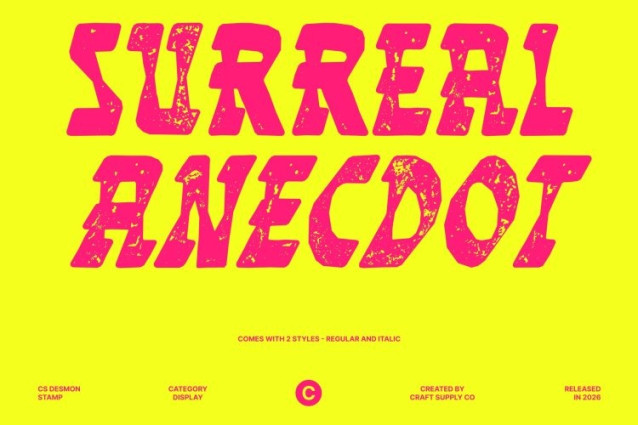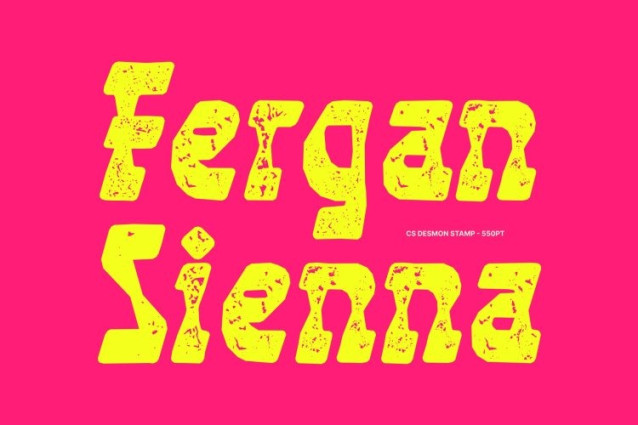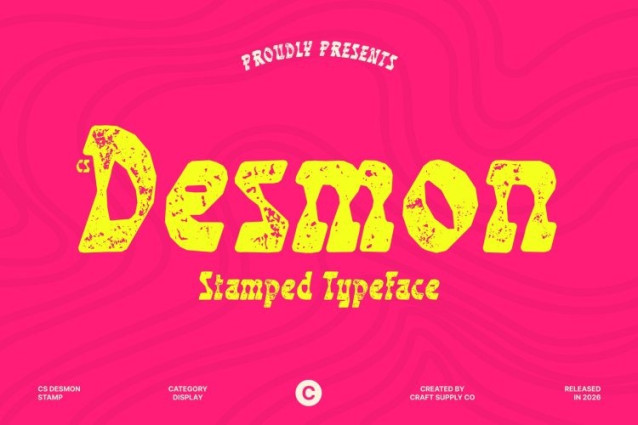
CS Desmon Stamp Font
CS Desmon Stamp Font – This is a display font that pushes beyond traditional serif design with its distinctive reverse contrast style. The upper portions of each letter are thicker while the lower sections are thinner, creating an unexpected visual rhythm that immediately catches the eye. This unusual weight distribution delivers a bold and memorable presence in any composition.
Funky, Playful, and Full of Personality
Beyond its unique structure, the font embraces a funky and playful spirit. Its quirky letterforms and lively character give designs an energetic and expressive tone, making it perfect for projects that want to feel fresh, unconventional, and creative.
Expressive Stamp Texture
The stamped effect adds a handcrafted, tactile quality that enhances the font’s personality. This subtle texture introduces depth and authenticity, helping designs feel more organic and visually engaging while maintaining a bold display impact.
Perfect for Eye-Catching Creative Projects
This font shines in music posters, vibrant advertising, packaging, and standout branding. Its reverse contrast structure and playful vibe ensure your message stands out with originality, confidence, and creative flair.